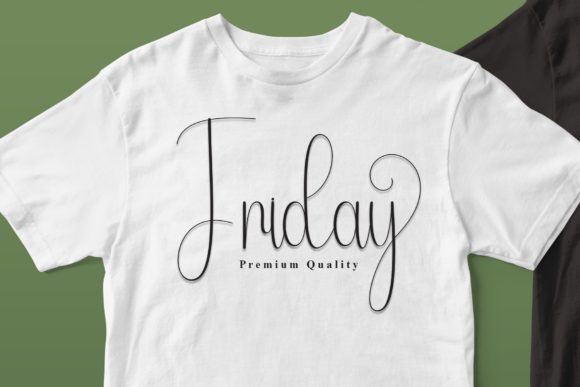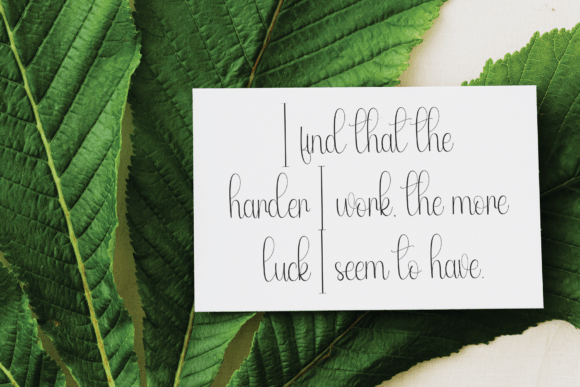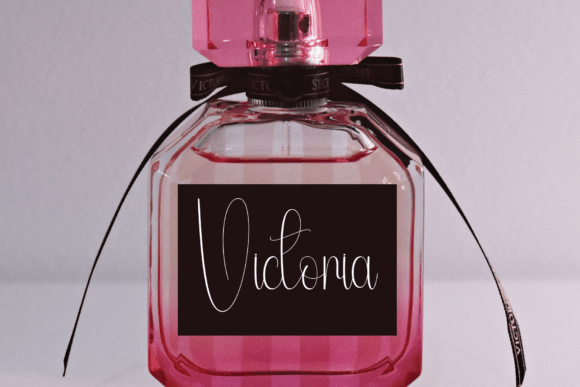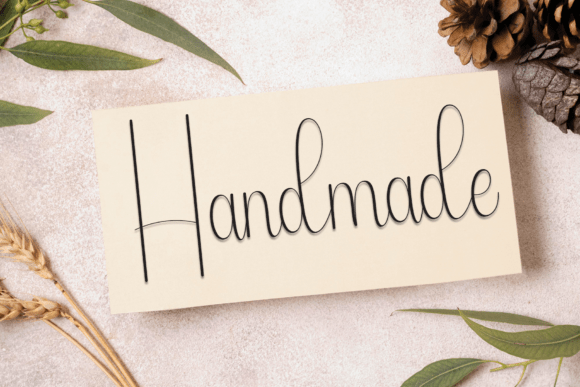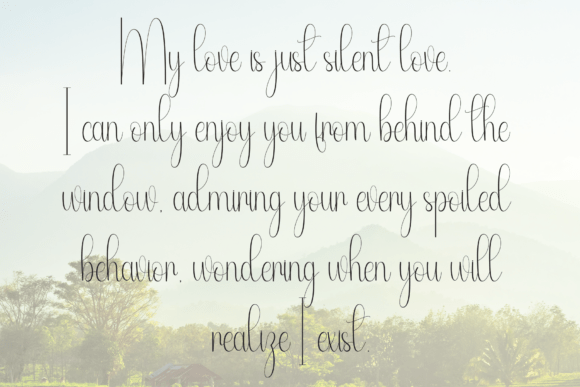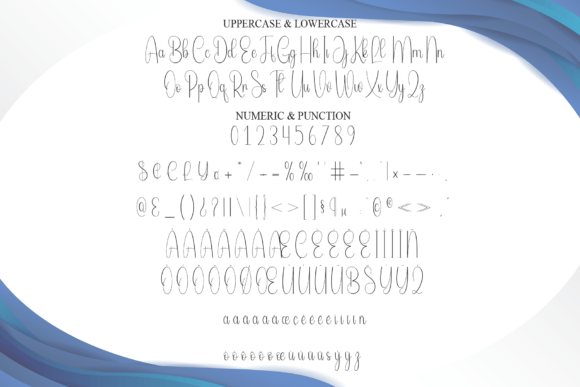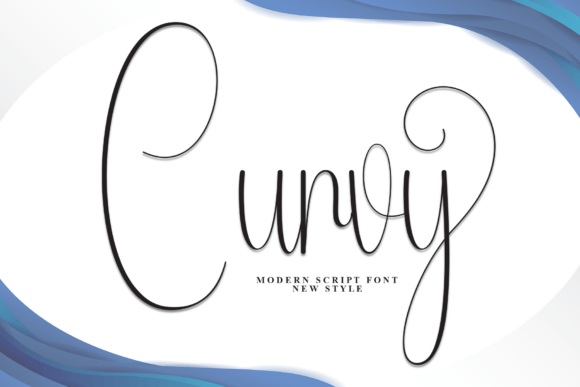
Introducing Curvy: The Elegant Handwritten Script Font
In the world of typography, a well-crafted font can elevate a design from ordinary to extraordinary. For designers and crafters seeking a stylish and sophisticated typeface, look no further than Curvy – a beautiful handwritten script font that exudes elegance and fluidity.
The Characteristics of Curvy
Curvy is a masterfully designed font that boasts smooth, flowing strokes that create a natural and refined feel. Its elegant curves and subtle nuances make it perfect for a variety of applications, including branding, invitations, and creative projects. With a graceful balance of charm and modernity, Curvy adds a personal, artistic touch to any design.
What Makes Curvy Unique?
So, what sets Curvy apart from other script fonts? Here are a few key features that make it a standout:
- Elegant and Fluid Strokes: Curvy’s smooth, flowing strokes create a sense of movement and fluidity, making it perfect for designs that require a touch of sophistication.
- Natural and Refined Feel: The font’s natural, handwritten feel makes it ideal for designs that require a personal touch, such as invitations, greeting cards, and branding materials.
- Balanced Charm and Modernity: Curvy strikes the perfect balance between classic charm and modern style, making it versatile enough to use in a wide range of design applications.
Whether you’re a professional designer or a crafty DIY enthusiast, Curvy is the perfect font for your next project. Here are just a few ways you can use Curvy to elevate your designs:
- Branding and Logo Design: Use Curvy to create a sophisticated and memorable brand identity that sets your business apart.
- Invitations and Stationery: Add a touch of elegance to your invitations, greeting cards, and other stationery with Curvy’s beautiful, flowing script.
- Creative Projects: Use Curvy to add a personal, artistic touch to your creative projects, such as scrapbooking, journaling, and mixed media art.
Tips for Using Curvy Effectively
To get the most out of Curvy, here are a few tips to keep in mind:
- Use it Sparingly: While Curvy is a beautiful font, it can be overwhelming if used excessively. Use it sparingly to create a sense of elegance and sophistication.
- Pair it with Other Fonts: Curvy pairs beautifully with other fonts, such as sans-serif fonts and serif fonts. Experiment with different pairings to find the perfect combination for your design.
- Experiment with Colors and Textures: Curvy looks stunning in a variety of colors and textures. Experiment with different colors and textures to find the perfect look for your design.
In conclusion, Curvy is a stunning handwritten script font that is sure to elevate your designs to the next level. With its smooth, flowing strokes and elegant curves, Curvy is perfect for designers and crafters seeking a sophisticated and refined typeface. Whether you’re creating branding materials, invitations, or creative projects, Curvy is the perfect choice for adding a personal, artistic touch.